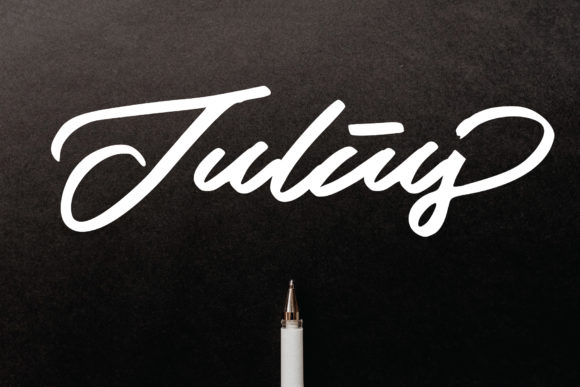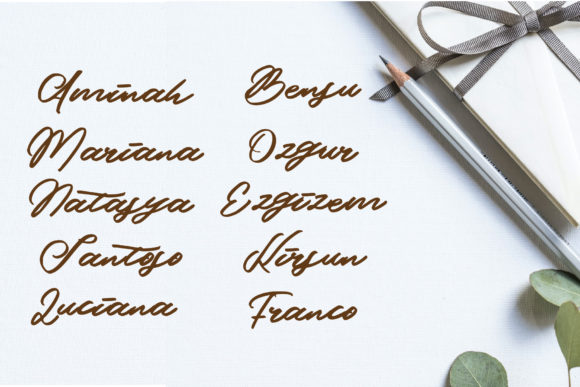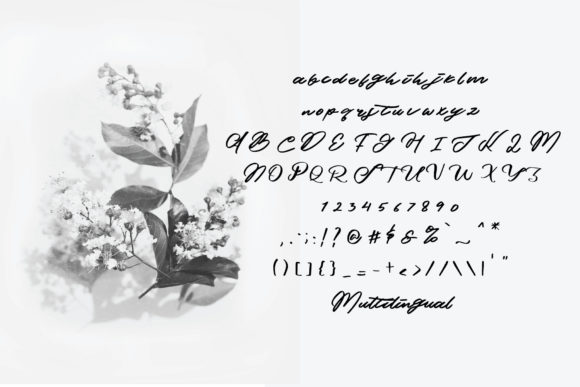
About Julius Font
Julius is a stylish and incredibly elegant script font. It looks stunning on wedding invitations, thank you cards, quotes, greeting cards, logos, business cards and every other design which needs a handwritten touch.